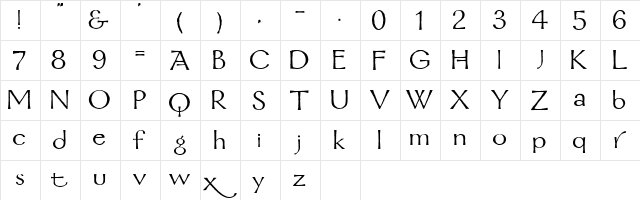
Mordred Regular
Design Context for Mordred Typeface
Mordred takes a measured approach to typography — its balanced proportions and neutral character make it a reliable workhorse for both digital and print work.